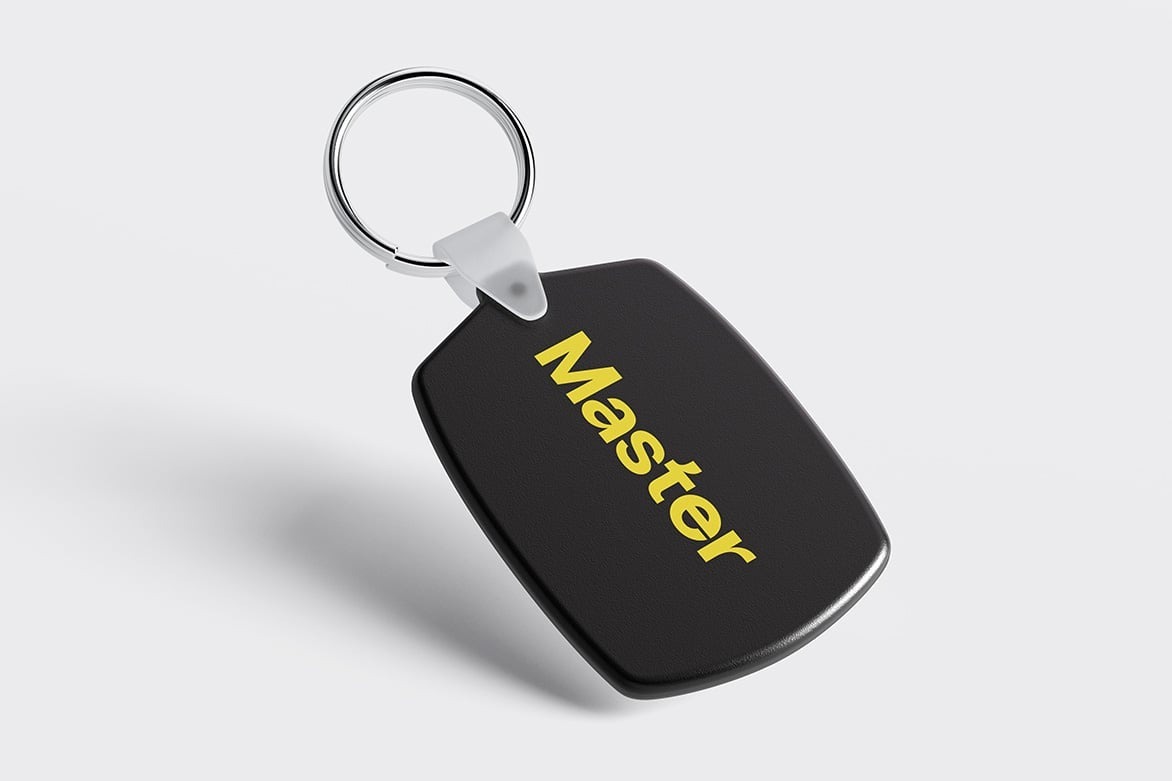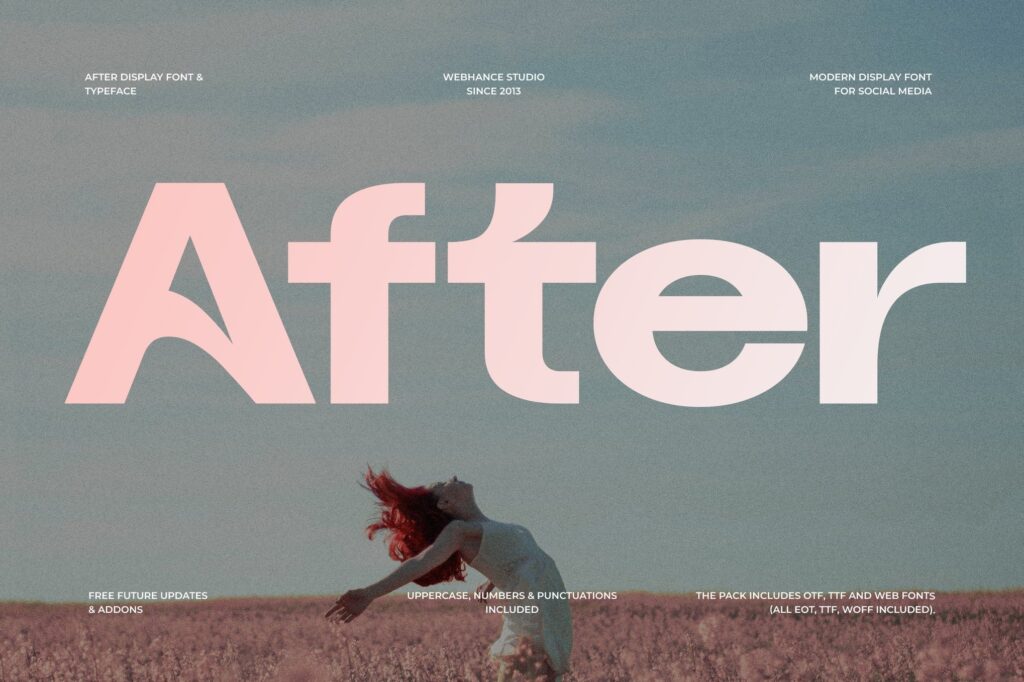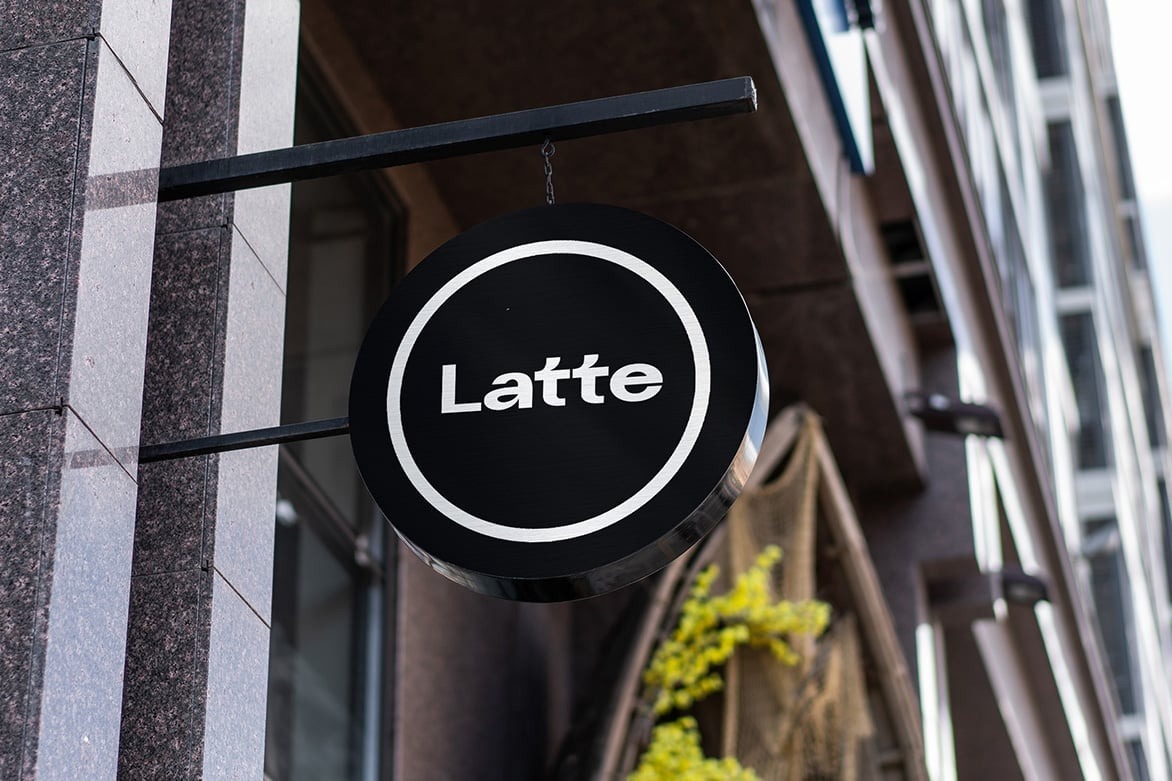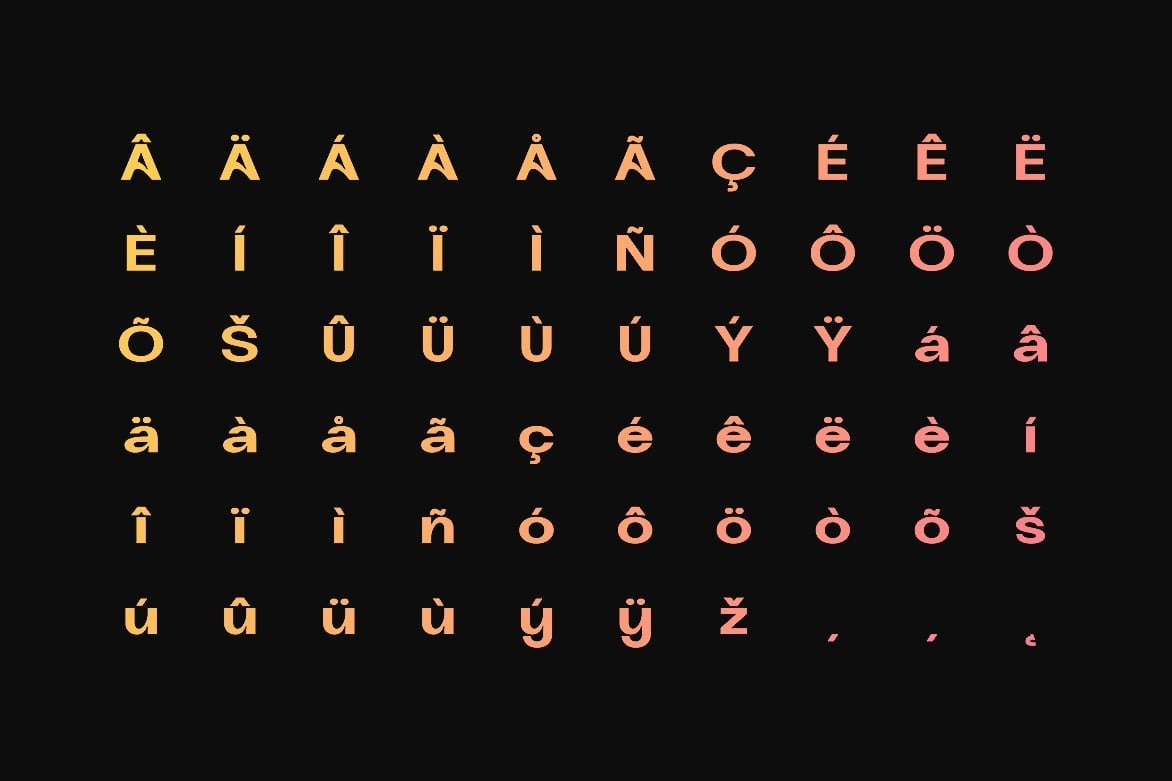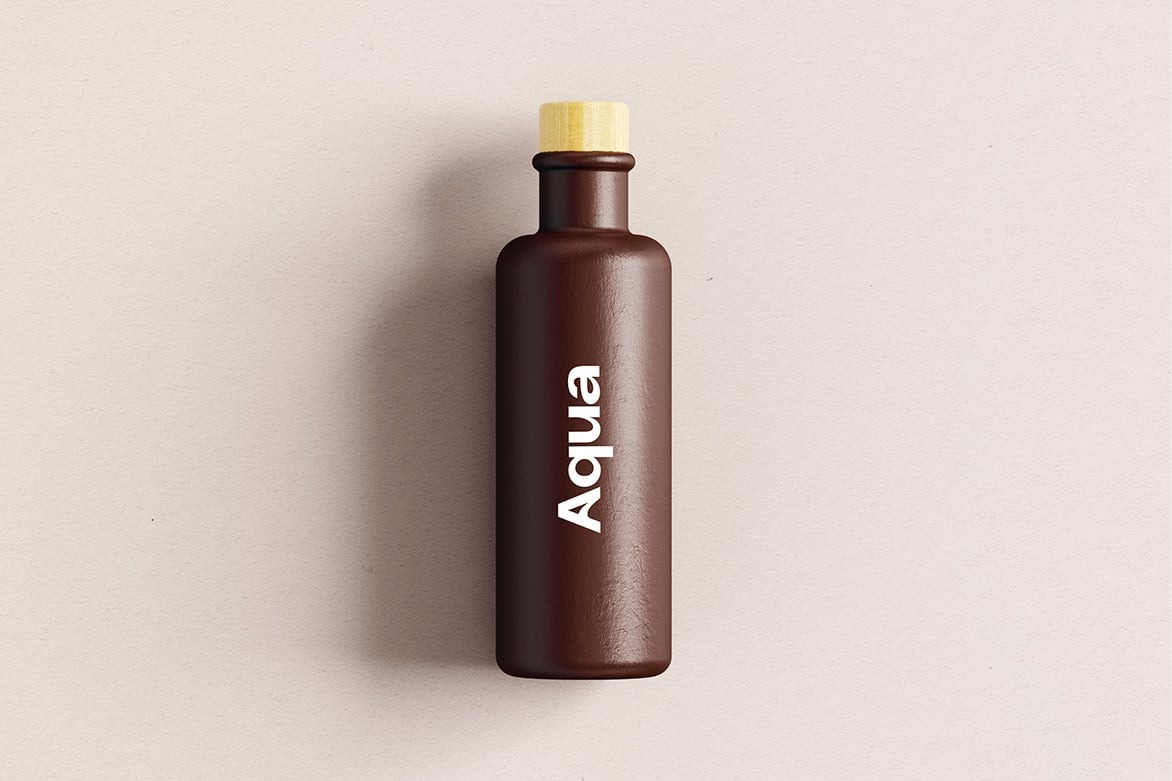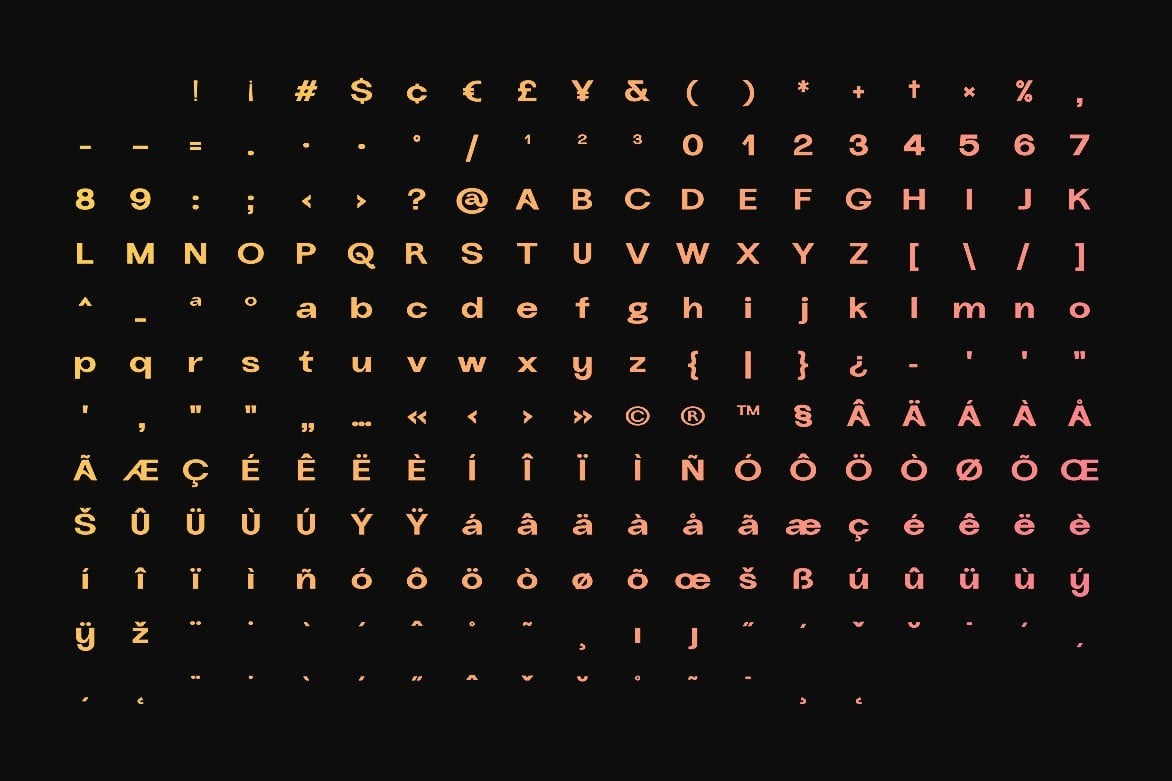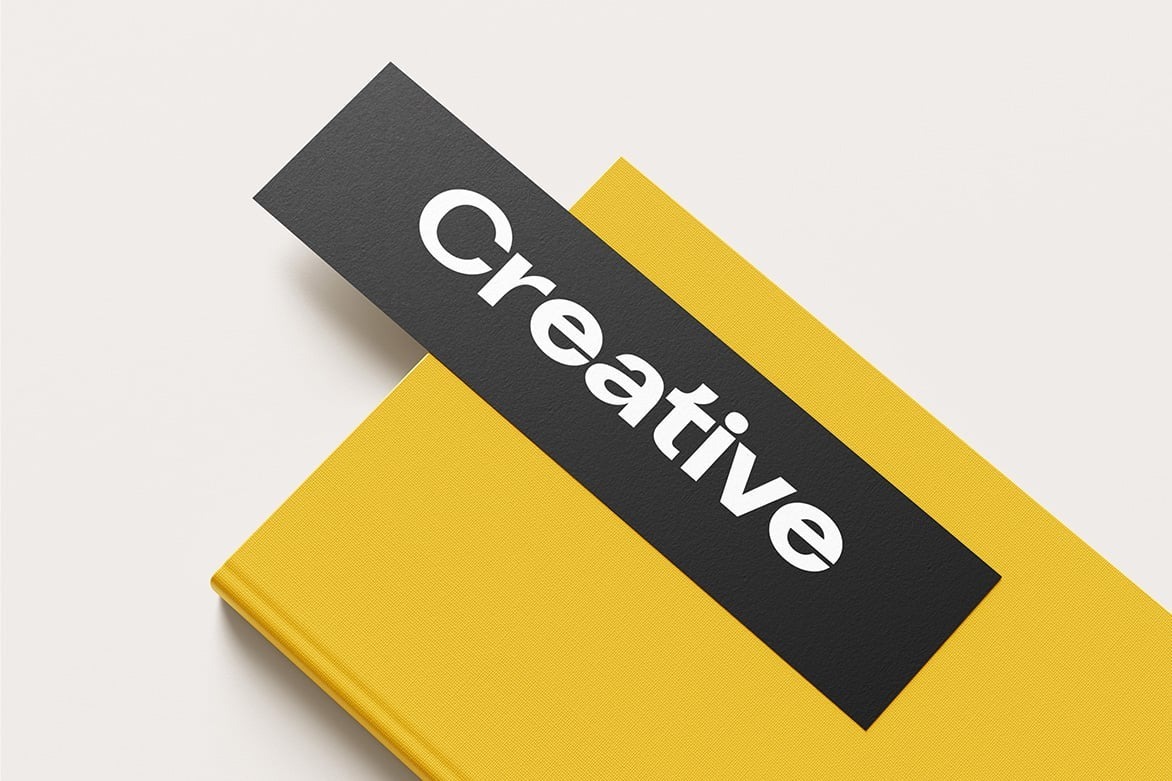
After – A Modern & Elegant Sans-Serif Display Font
Introducing After, a sleek and versatile sans-serif typeface crafted for designers who seek simplicity with a touch of sophistication. Designed with precision, this font delivers a clean, modern aesthetic that enhances any creative project, from branding to web design.
With its balanced proportions and refined letterforms, After ensures outstanding readability while maintaining a stylish, contemporary look. Whether you’re designing logos, headlines, presentations, or editorial layouts, this font brings a polished, professional feel to your work.
Introducing After, a sleek and versatile sans-serif typeface crafted for designers who seek simplicity with a touch of sophistication. Designed with precision, this font delivers a clean, modern aesthetic that enhances any creative project, from branding to web design. With its balanced proportions and refined letterforms, After ensures outstanding readability while maintaining a stylish, contemporary look. Whether you're designing logos, headlines, presentations, or editorial layouts, this font brings a polished, professional feel to your work.